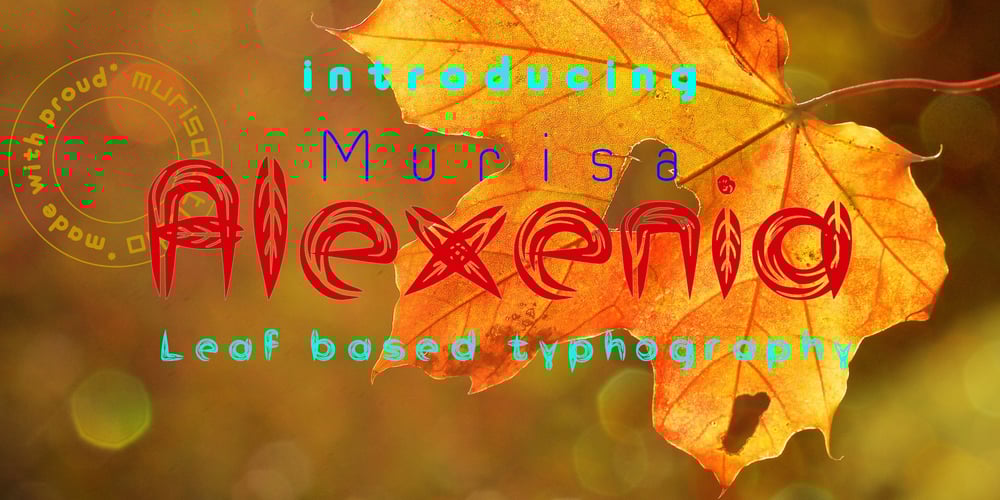
Murisa Alexenia Font Family was designed by Lili and published by Murisa Studio. Murisa Alexenia contains 2 styles and family package options. Have you ever wanted a pattern in your font?, so it will look unique and attractive?. We present to you the Alexenia font. Murisa Alexenia is a font inspired by fallen leaves in winter. A font full of aesthetics in it. A font that will take you into a calming atmosphere. Use this font in your best design, and feel the sensation..